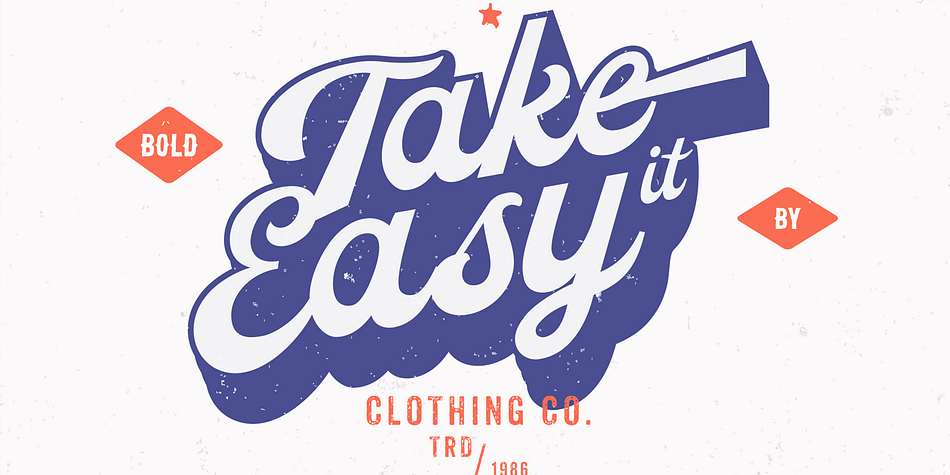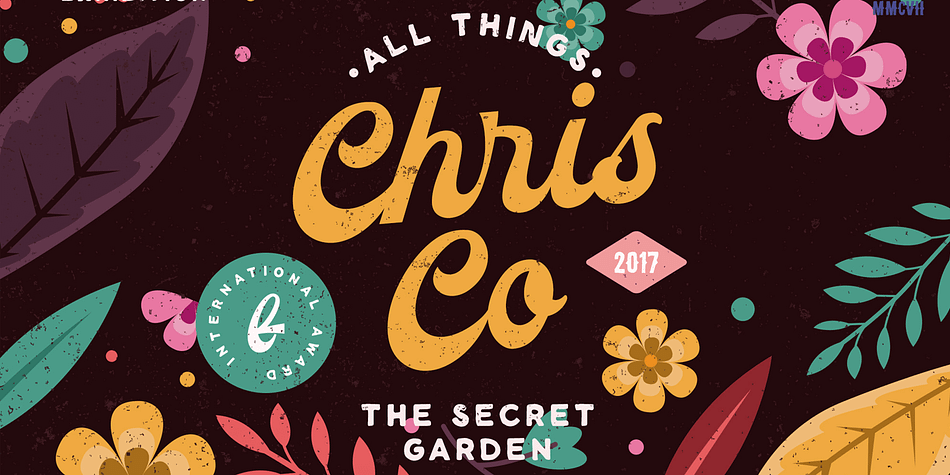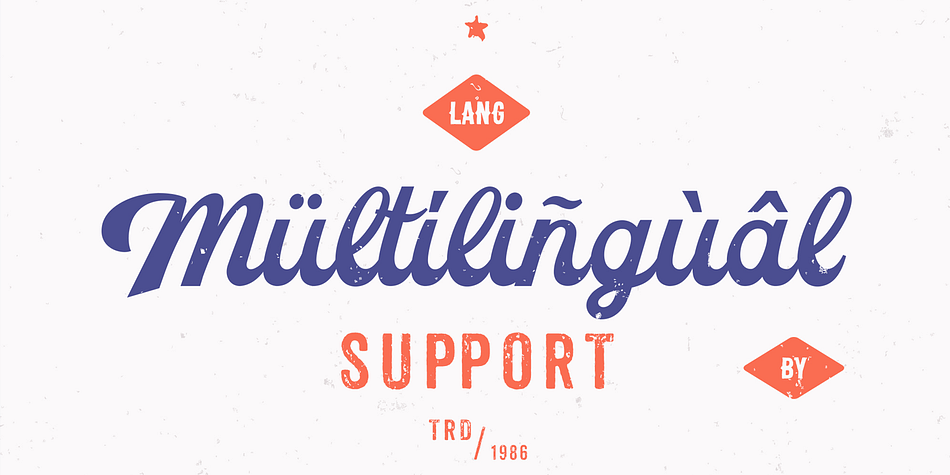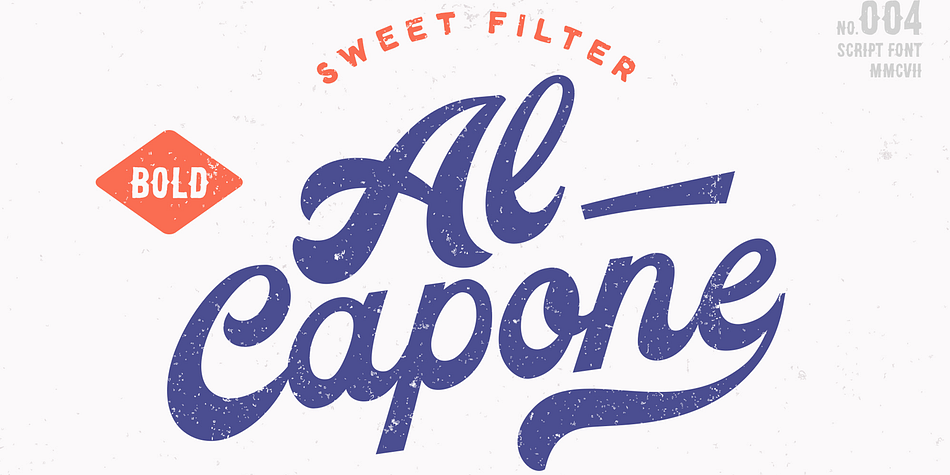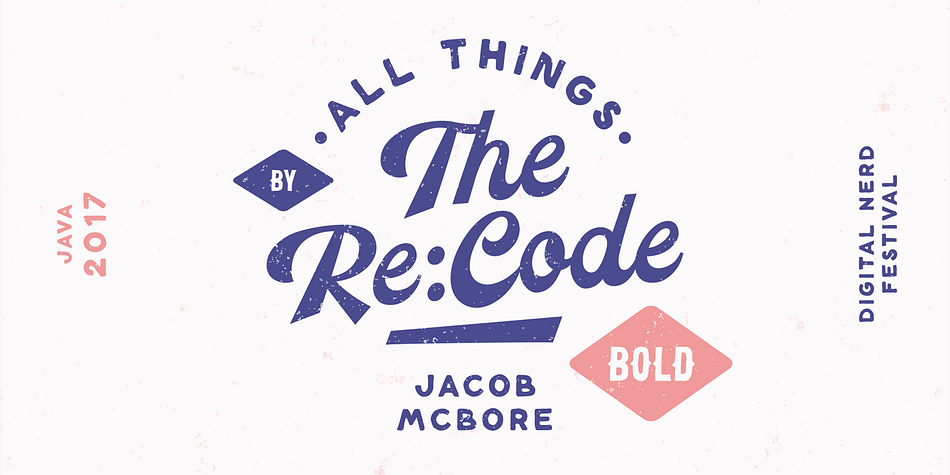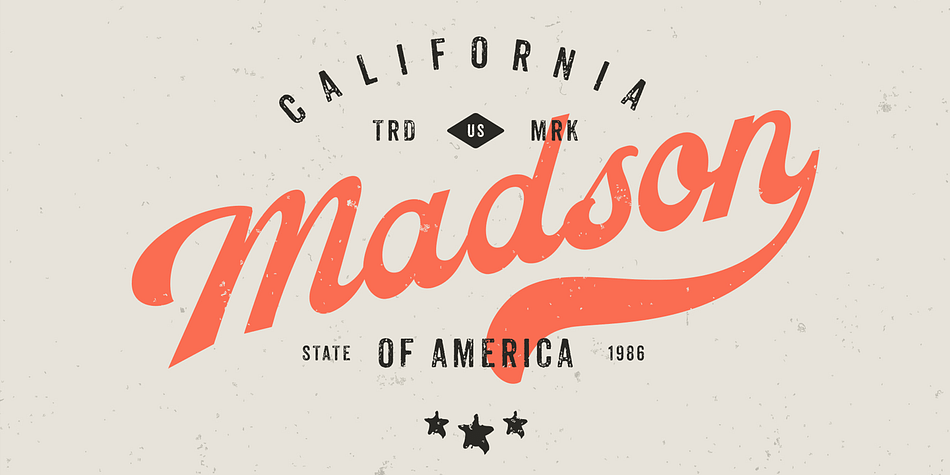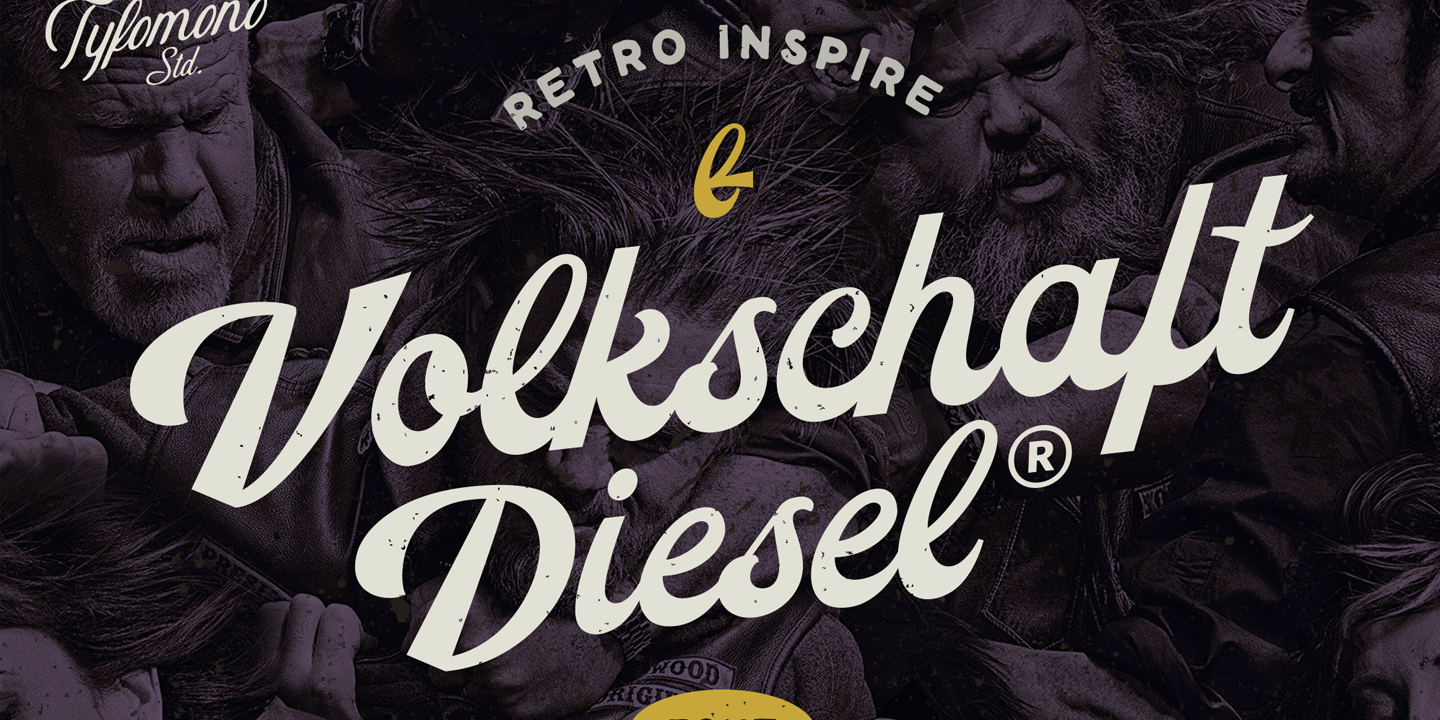
Volkschaft TF is a retro, script and dingbat font family. This typeface has two styles and was published by Firman Ananda.
Introducing the new script font called Volkschaft. High quality script font with swashes inspired by retro propaganda posters and graphics. Plus OpenType features with Stylistic Alternates, Swashes, Ligatures, this stylistic set allows you to mix and match pairs of letters to fit your design. This font is good for vintage design, t-shirts, logos, labels, badges, posters, etc.